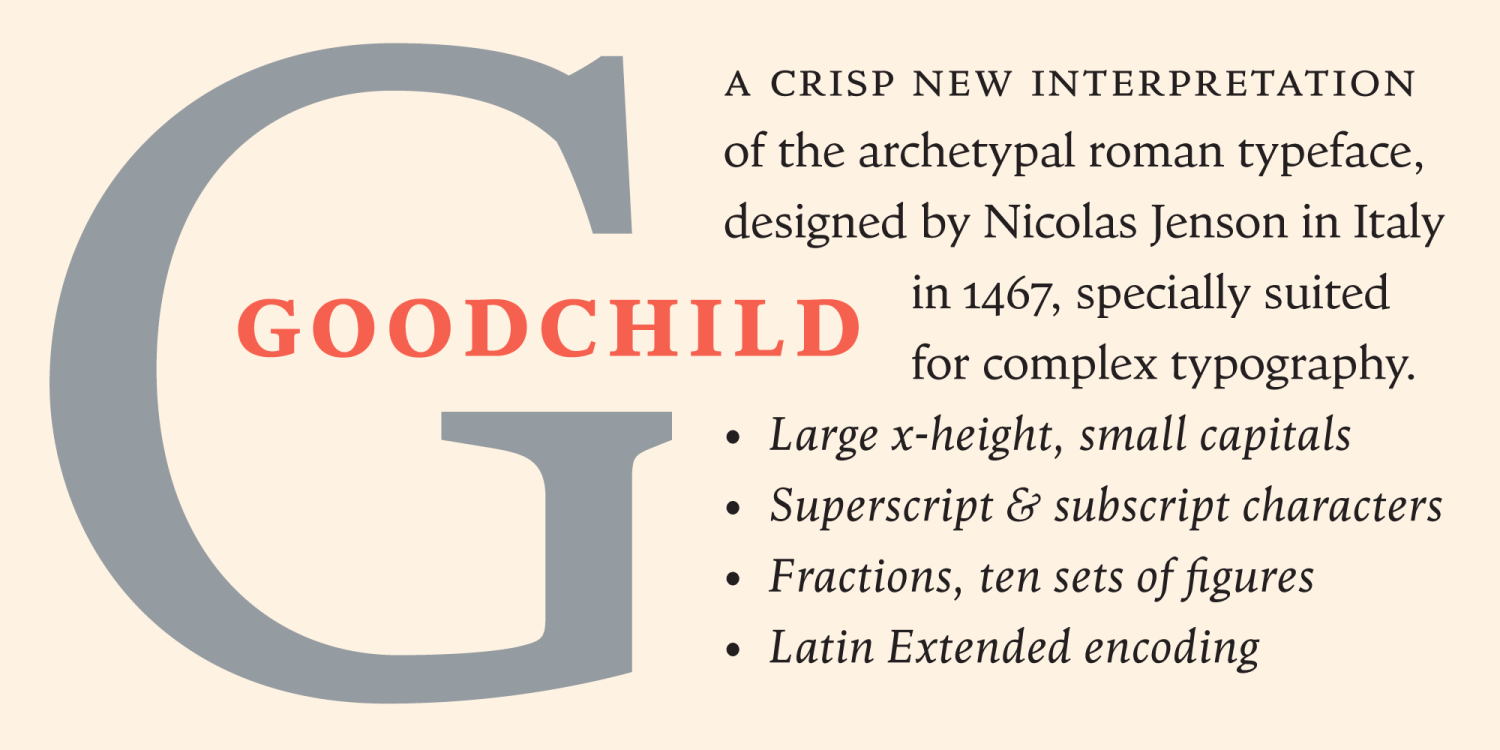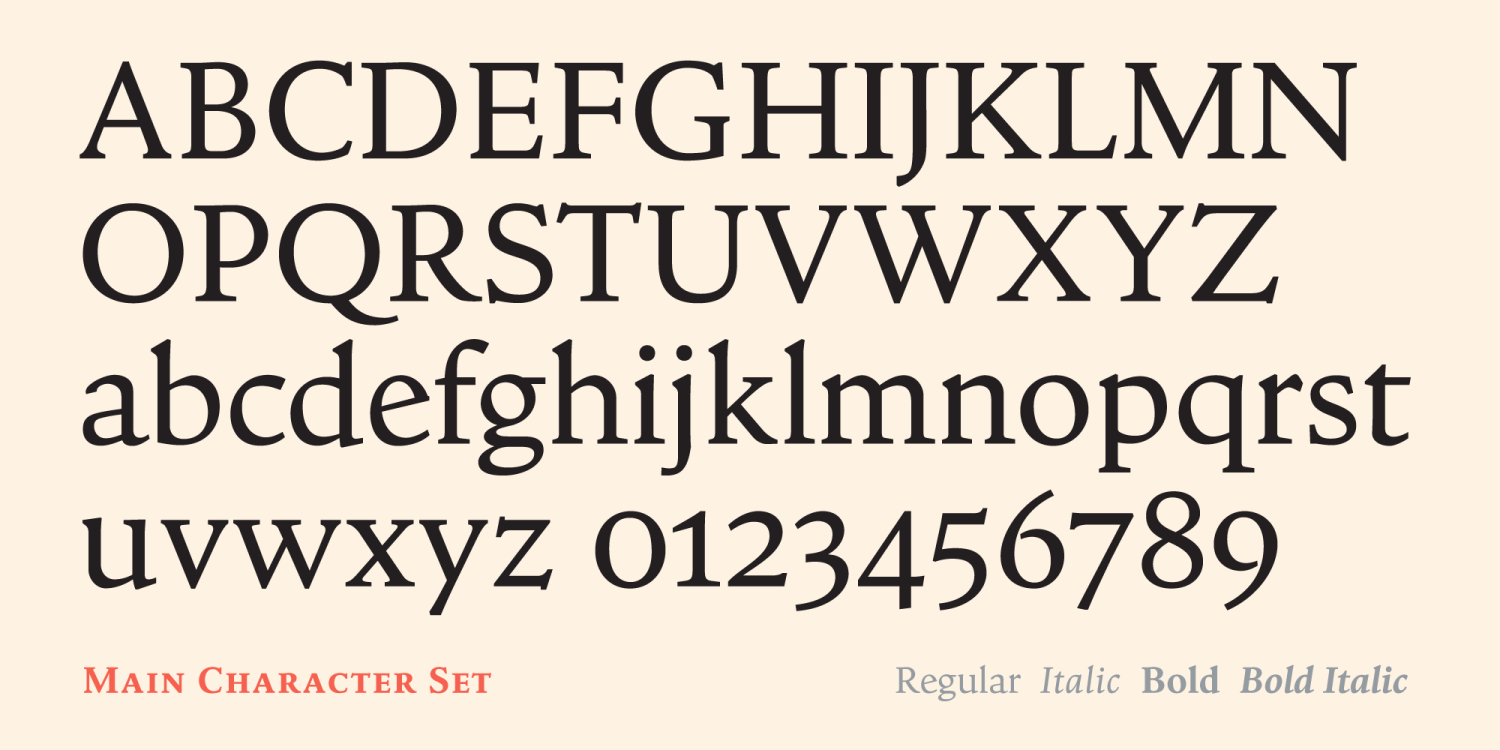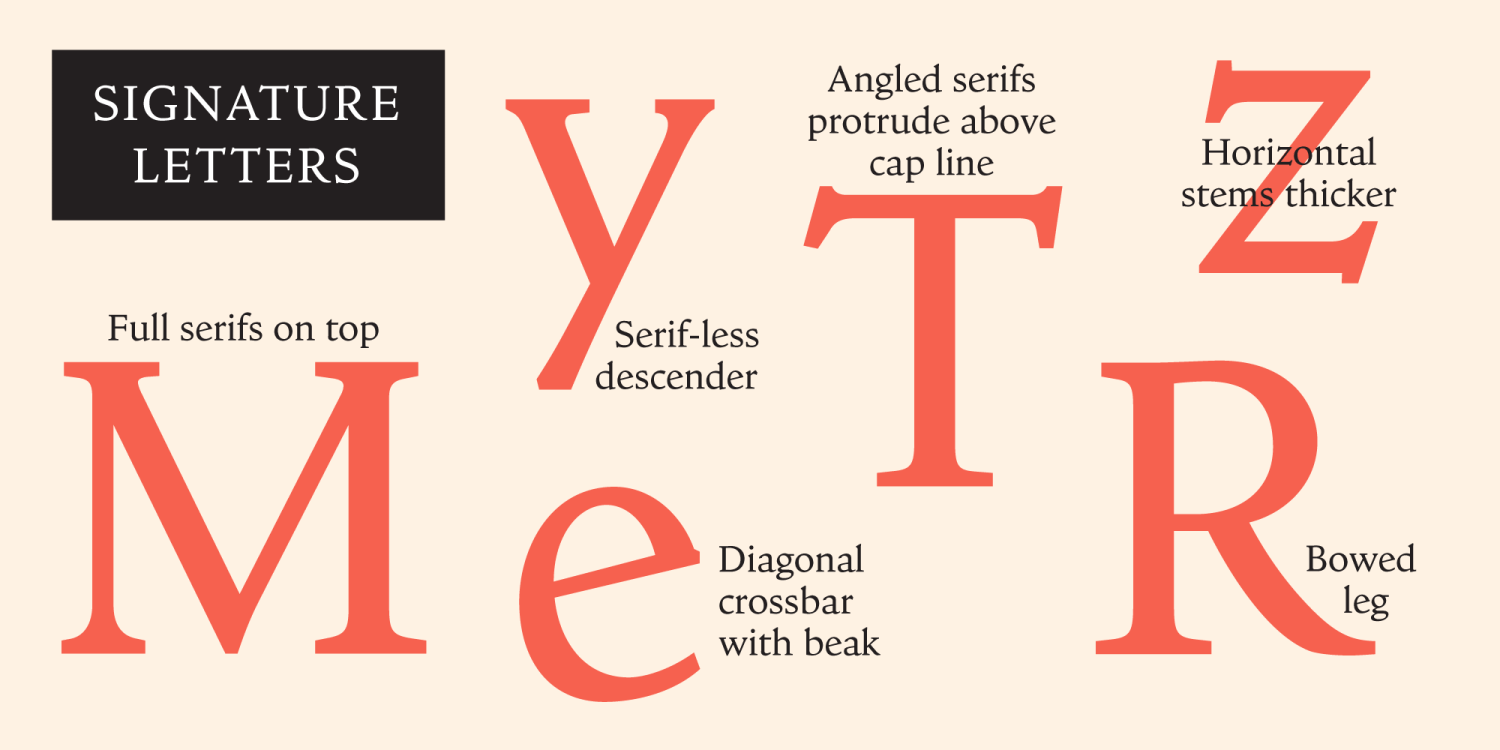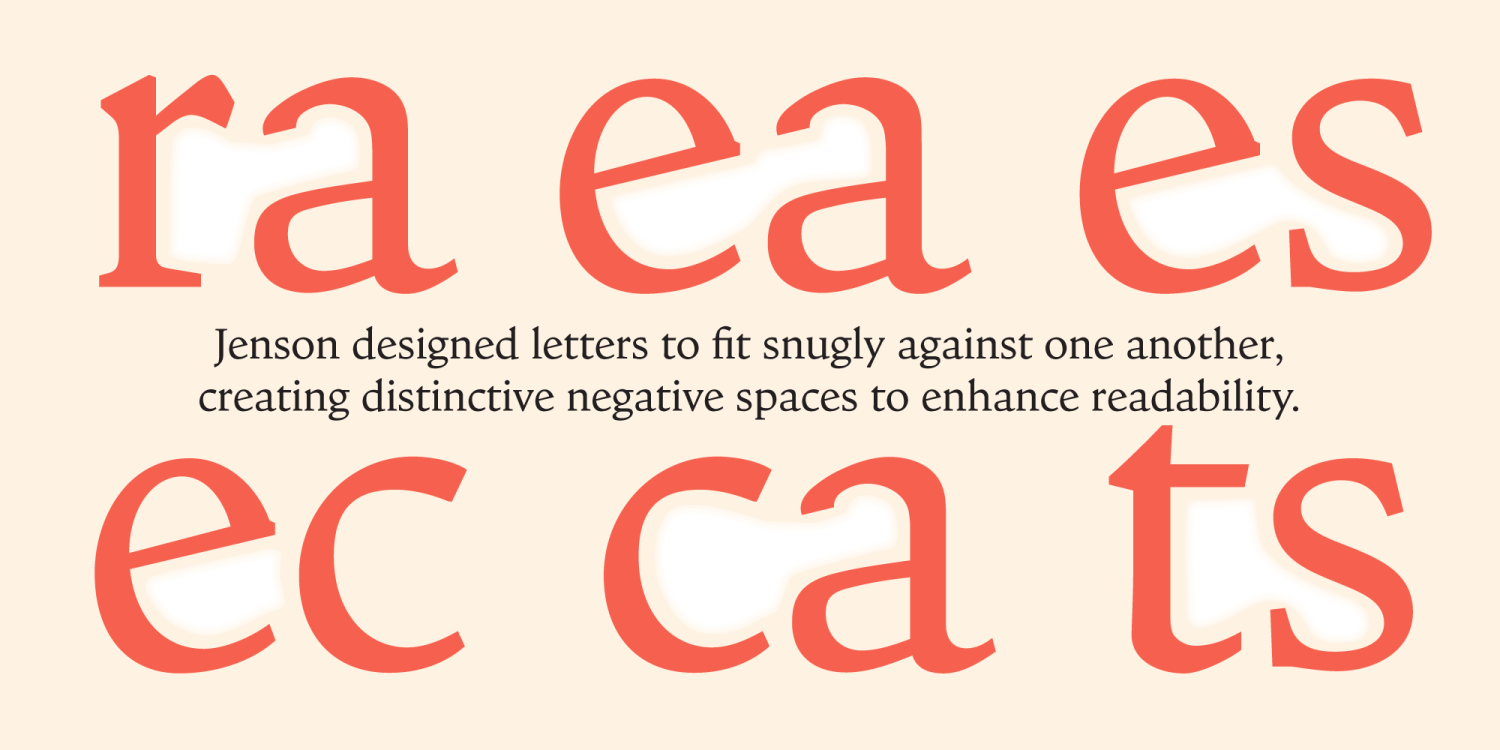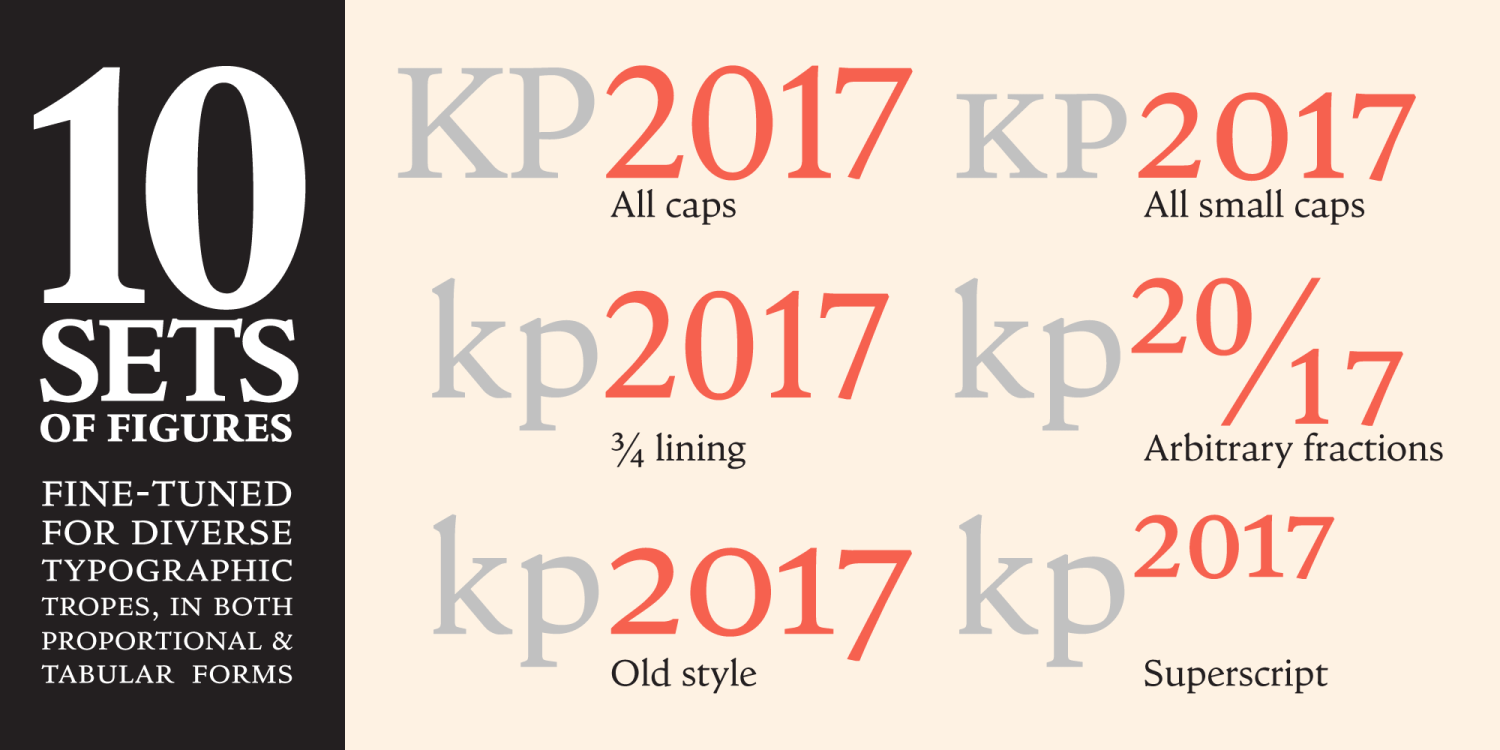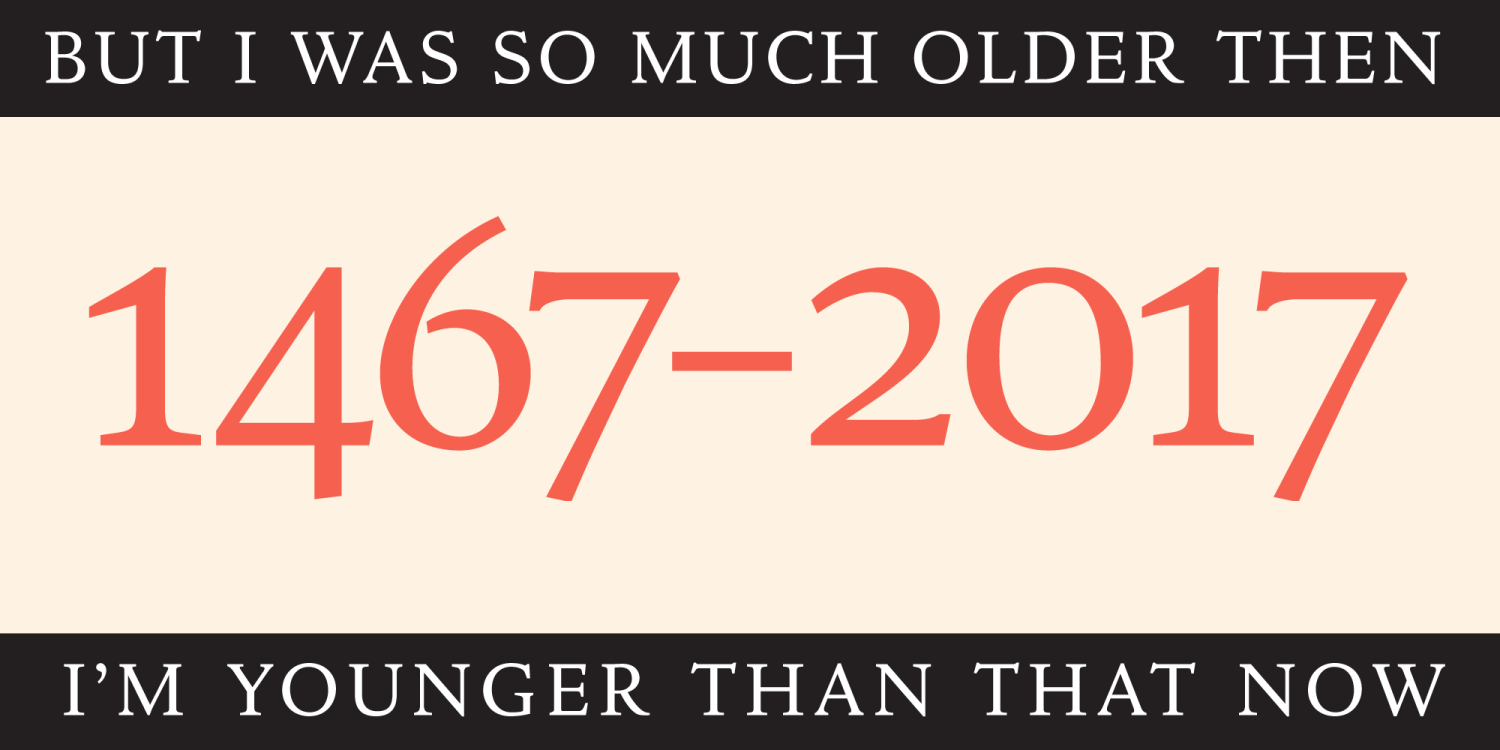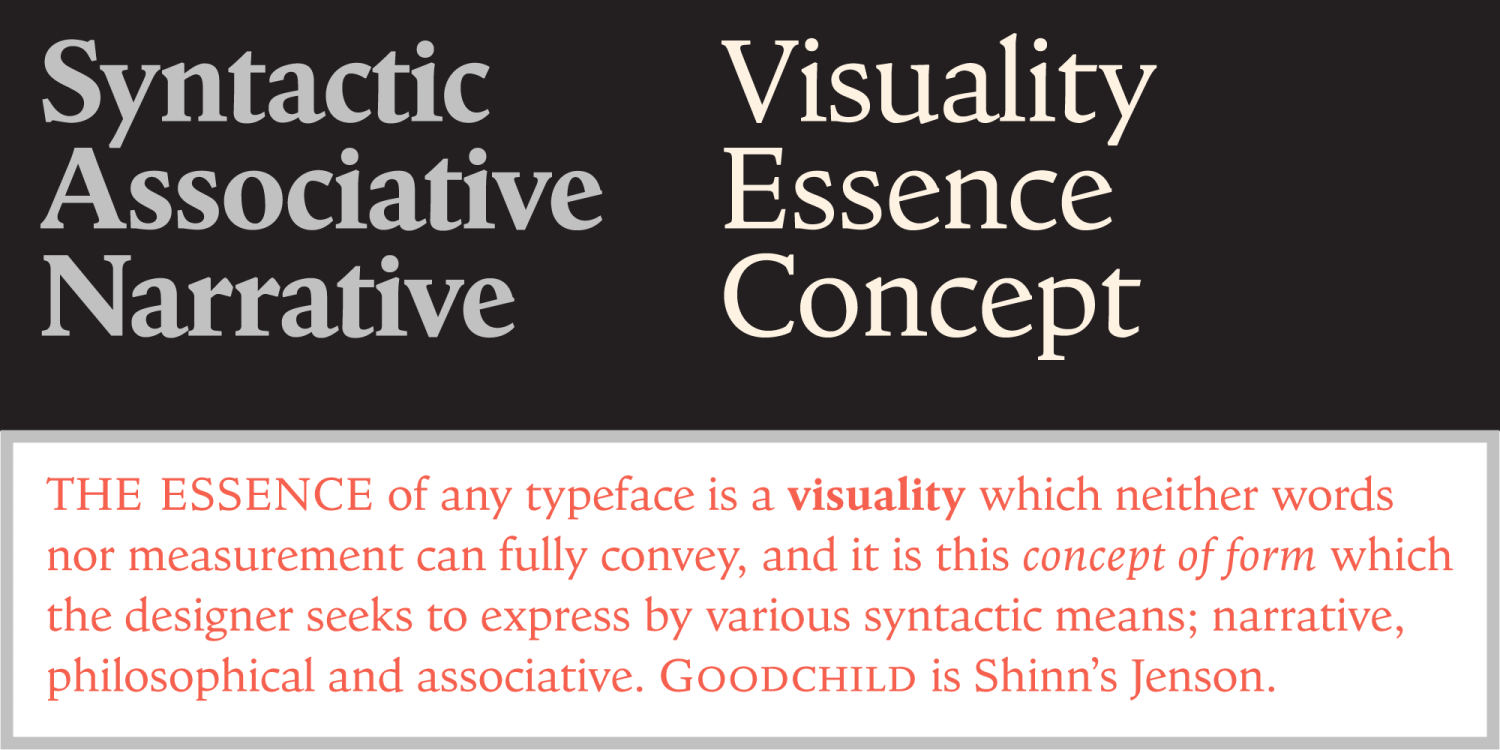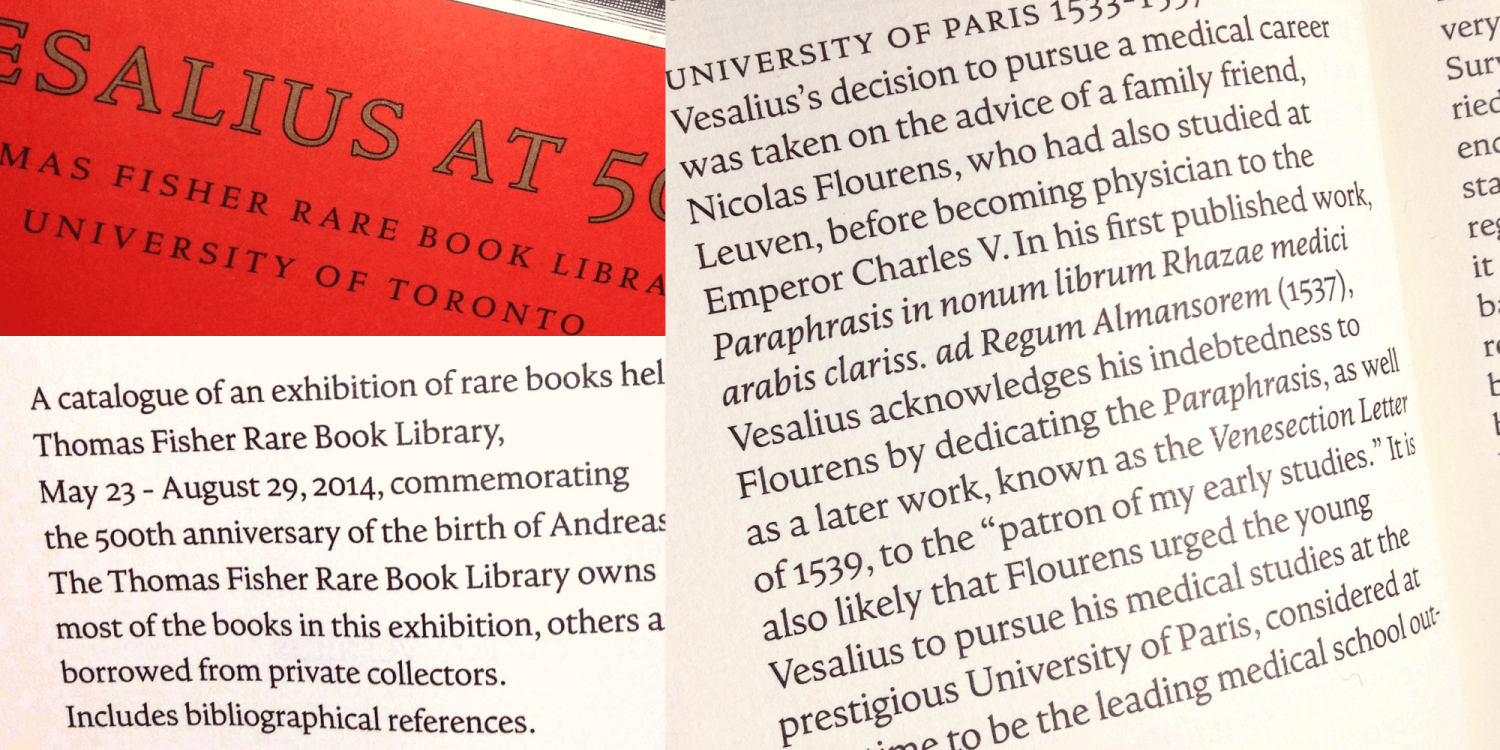
Goodchild
Font Family by Shinntype
Goodchild is a robust Jenson revival with large x-height and short capitals that make it a workhorse for text setting. At display size, its crisp, no-nonsense details provide a contemporary freshness.